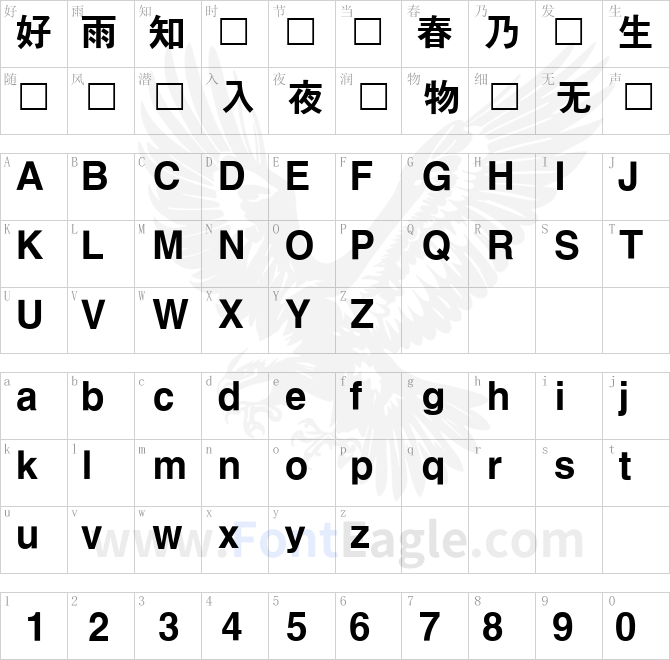
HYGothic-Extra is a great font, widely used in graphic design, single-page menu design, poster design and other fields, and is deeply loved by designers.HYGothic-Extra download.